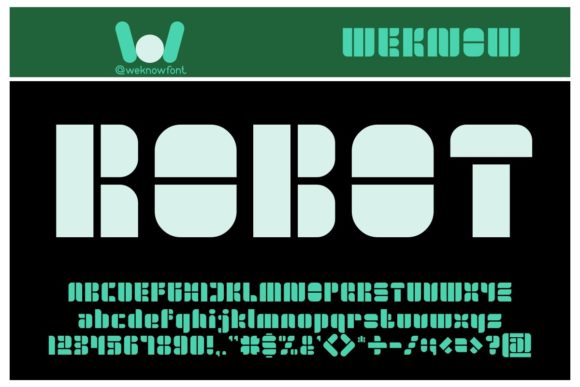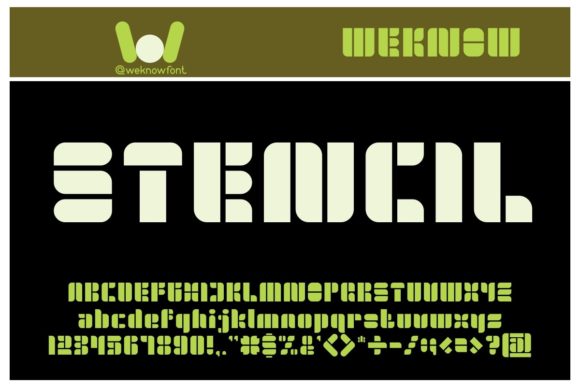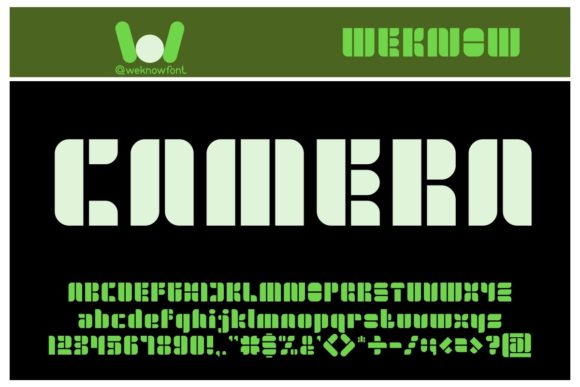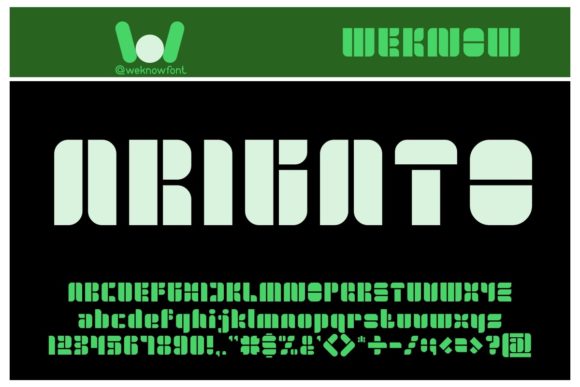
Introduction to Golden Bar Font
Golden Bar is a modern, thick lettered and robotic styled display font.
The font is suitable for any branding project like logo, t-shirt printing, sporting design, and many more It will look outstanding in a wide range of contexts.